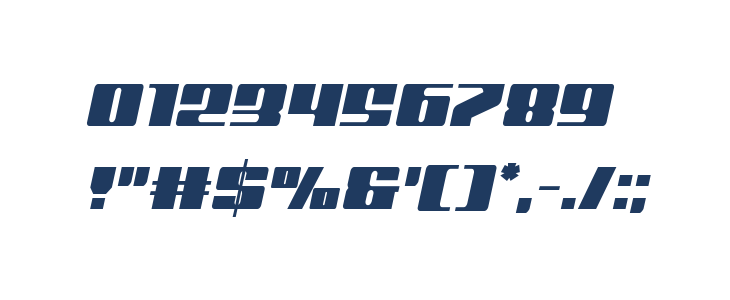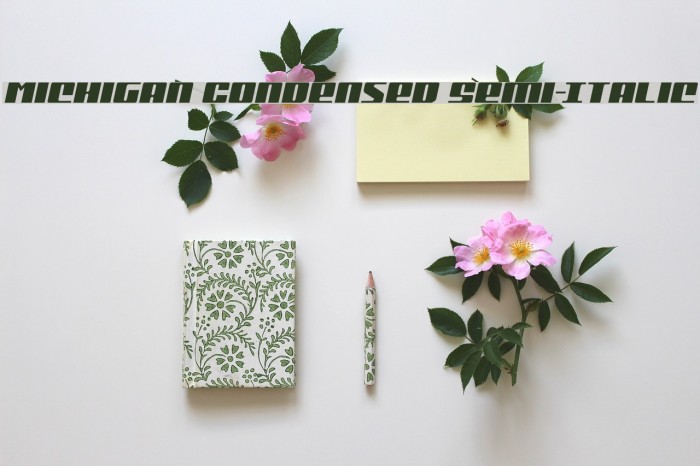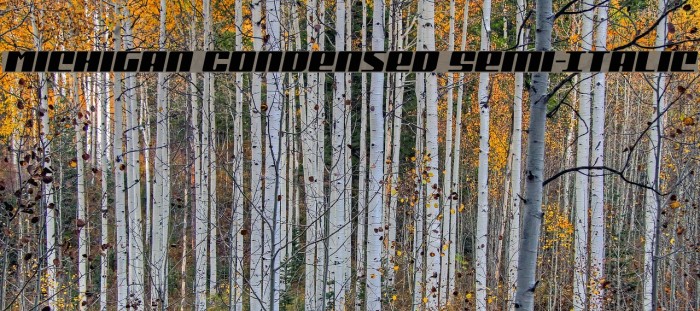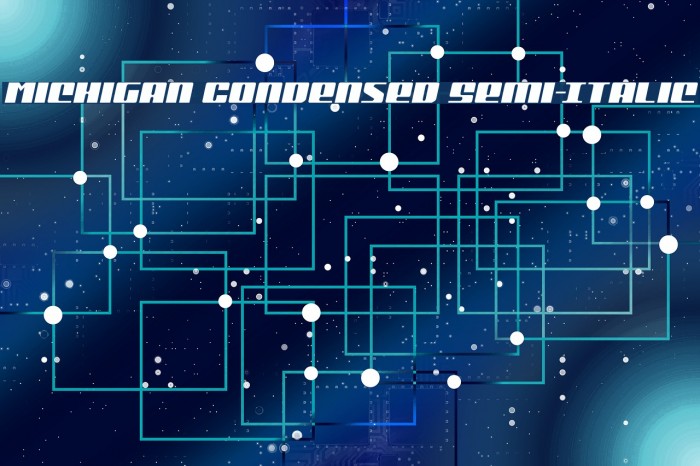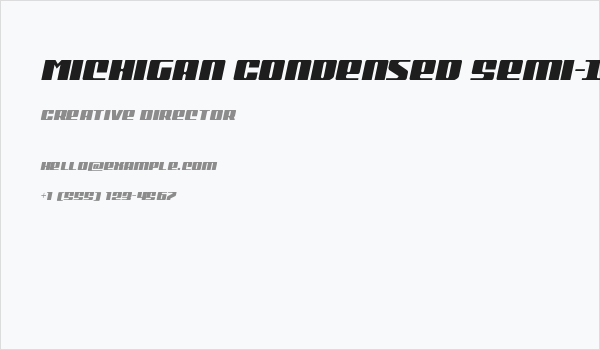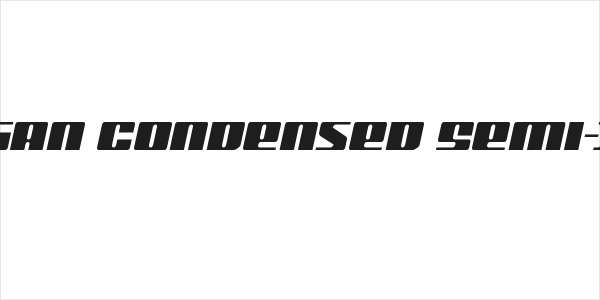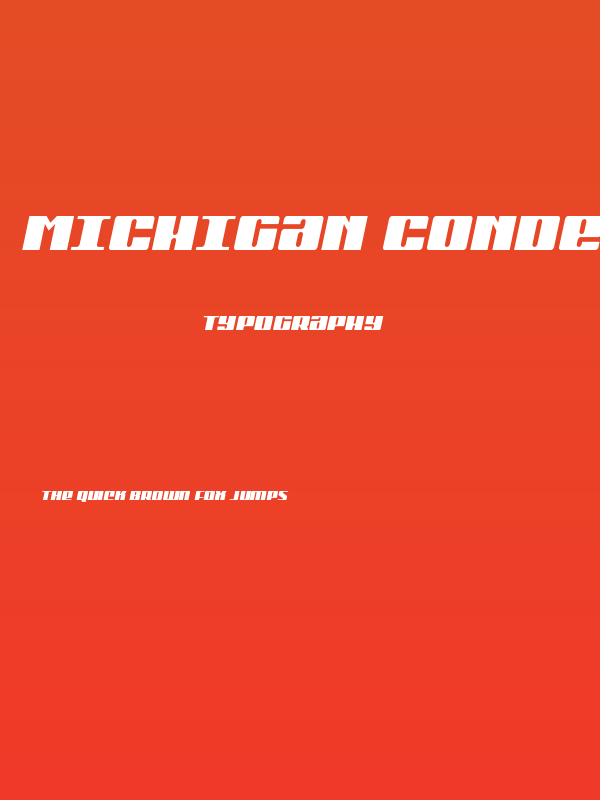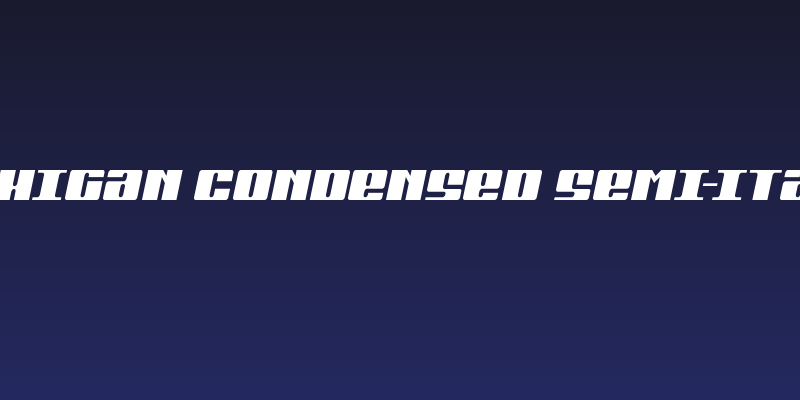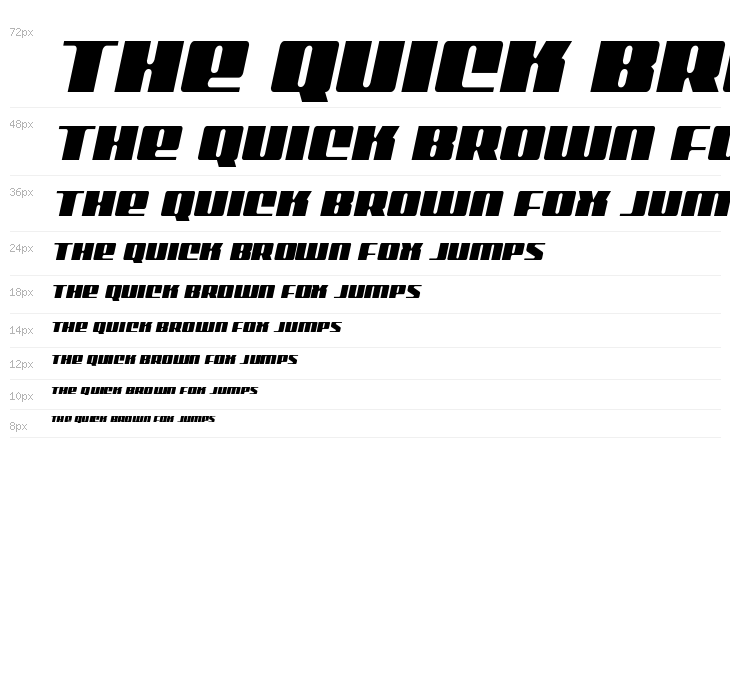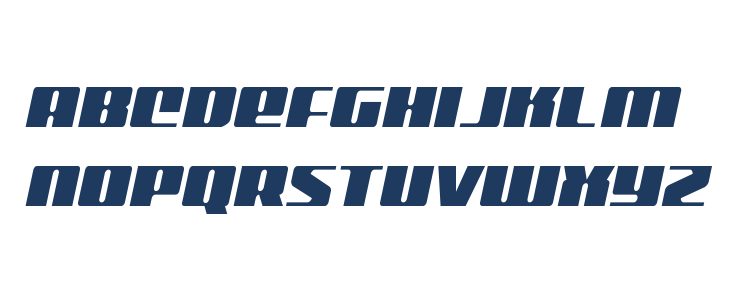
Michigan Condensed Semi-Italic Font
Michigan Condensed Semi-Italic Description
This font features a bold, condensed style with a semi-italic slant, giving it a dynamic and modern appearance. The characters are tightly spaced, enhancing its compact look, while the bold weight ensures strong visibility and impact. The design includes sharp angles and clean lines, contributing to a futuristic aesthetic. The uppercase and lowercase letters maintain a consistent style, with numerals and special characters following suit. This font's unique style makes it suitable for projects that require a strong, eye-catching typeface.
| Proposed Projects | Ideal for sports branding, posters, headlines, and any design needing a bold, impactful typeface. |